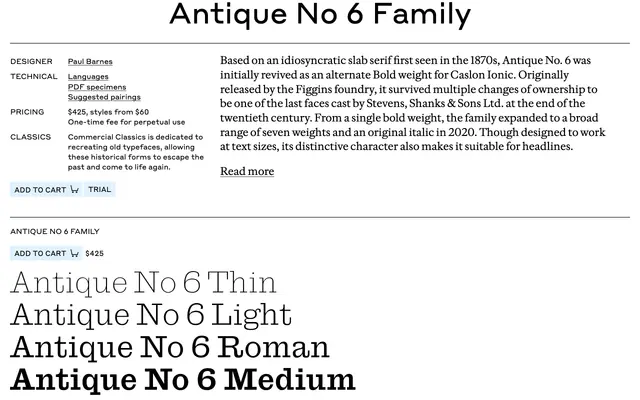
Antique No 6
Commercial Type · Paul Barnes · 2020
A seven-weight revival by Paul Barnes of an 1870s Figgins slab, drawn for text but with enough character to lead headlines.
A slab serif revival by Paul Barnes for Commercial Classics, based on an idiosyncratic face first seen in the 1870s. Originally released by the Figgins foundry, it survived multiple changes of ownership to become one of the last faces cast by Stevens, Shanks & Sons at the end of the twentieth century. First brought back as an alternate Bold for Caslon Ionic, it expanded in 2020 to seven weights with an original italic. Designed for text but distinctive enough to carry headlines, especially where editorial work wants a slightly off-kilter Victorian voice.
An idiosyncratic slab serif revival based on a face first seen in the 1870s from the Figgins foundry, later cast by Stevens, Shanks & Sons. Released under Commercial Classics, expanded from a single bold to seven weights and an original italic in 2020.